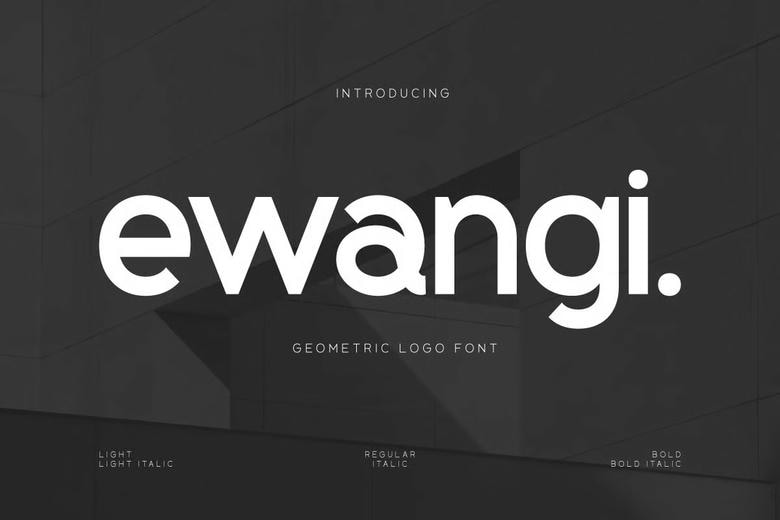
Ewangi Font
Ewangi Corporate font is clean and elegant, that conveys precision, professionalism, modern and sophisticated. With proportions that are none-obtrusive, lucrative curves and jagged edges, Ewangi is pleasant to employs in branding, corporate texts, technology startups business presentations, and editorials. It is elegant font with a taste of form and deciphering, suitable to utilize in all implications including logos and fonts (headlines) as well as the body of formal documentation.
Ewangi is a combination of simplicity and boldness- winning your message to be clear, firm and highly visually refined. And when you want to construct a brand around ideas such as trust, innovation and style, Ewangi has the typographic framework to make it proclaim itself in an effective manner.
Ewangi Sans Serif Font